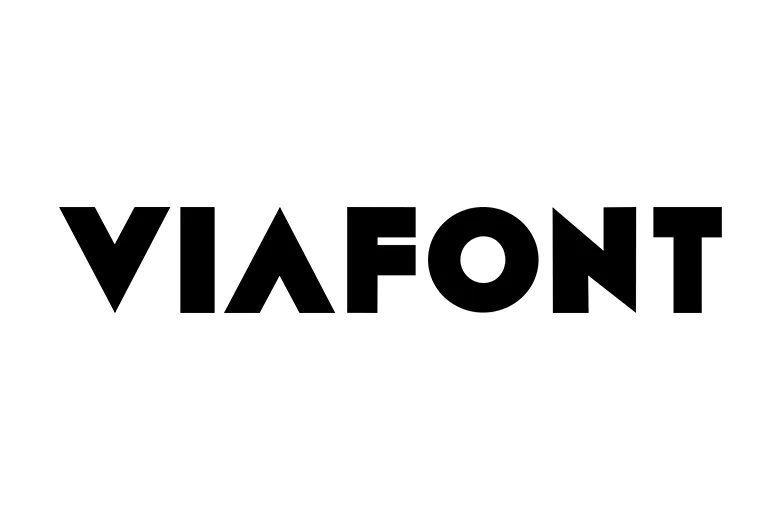
Viafont Font
Viafont is a simple, geometric sans-serif font that looks similar to the Viacom logo font. I made this font with Font Lab Studio. It includes Latin letters, other alphabets, numbers, special symbols, and non-English characters. Like all my fonts, it has a Euro sign and is released under a Public Domain license.
Viafont Display Font